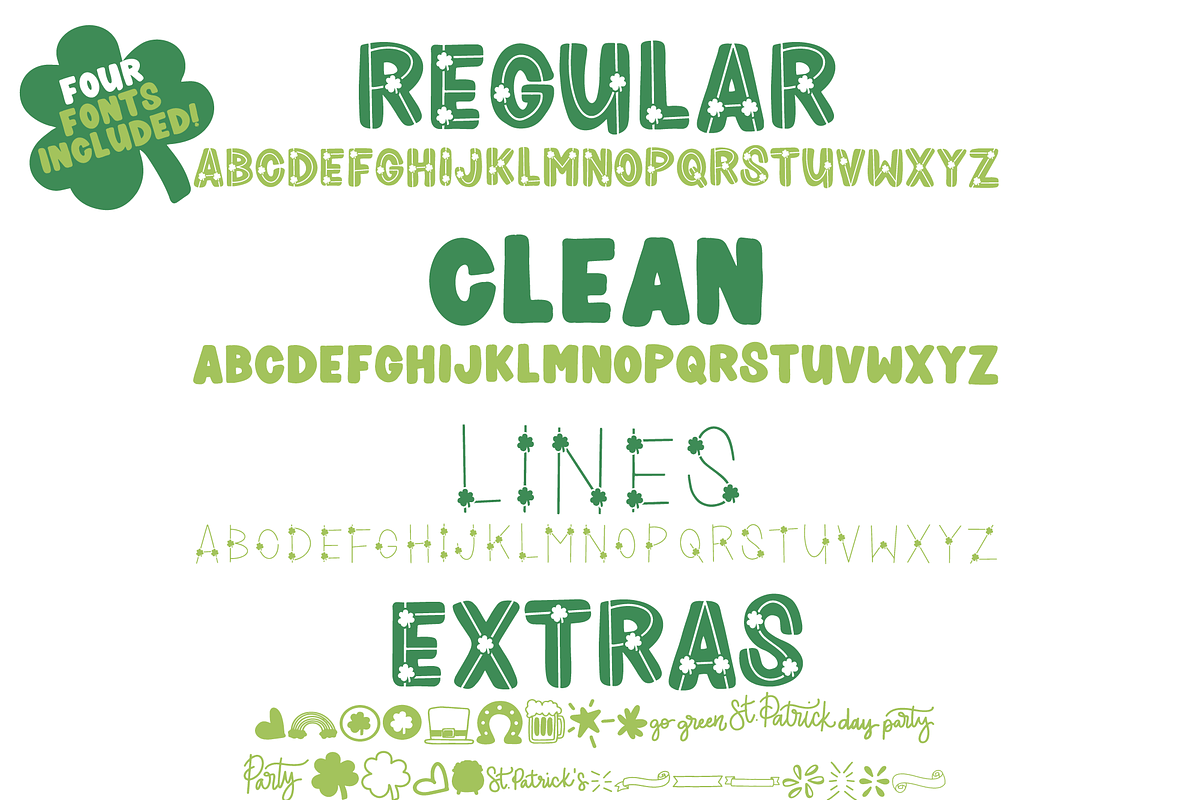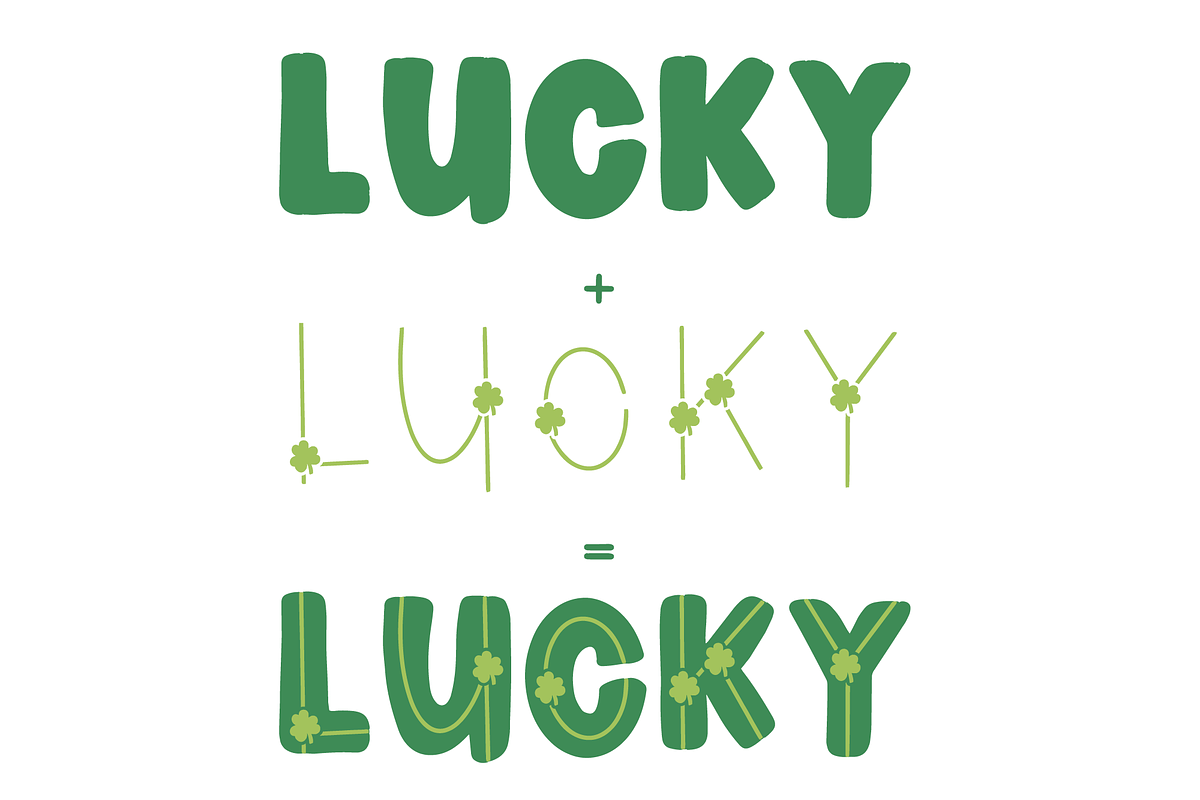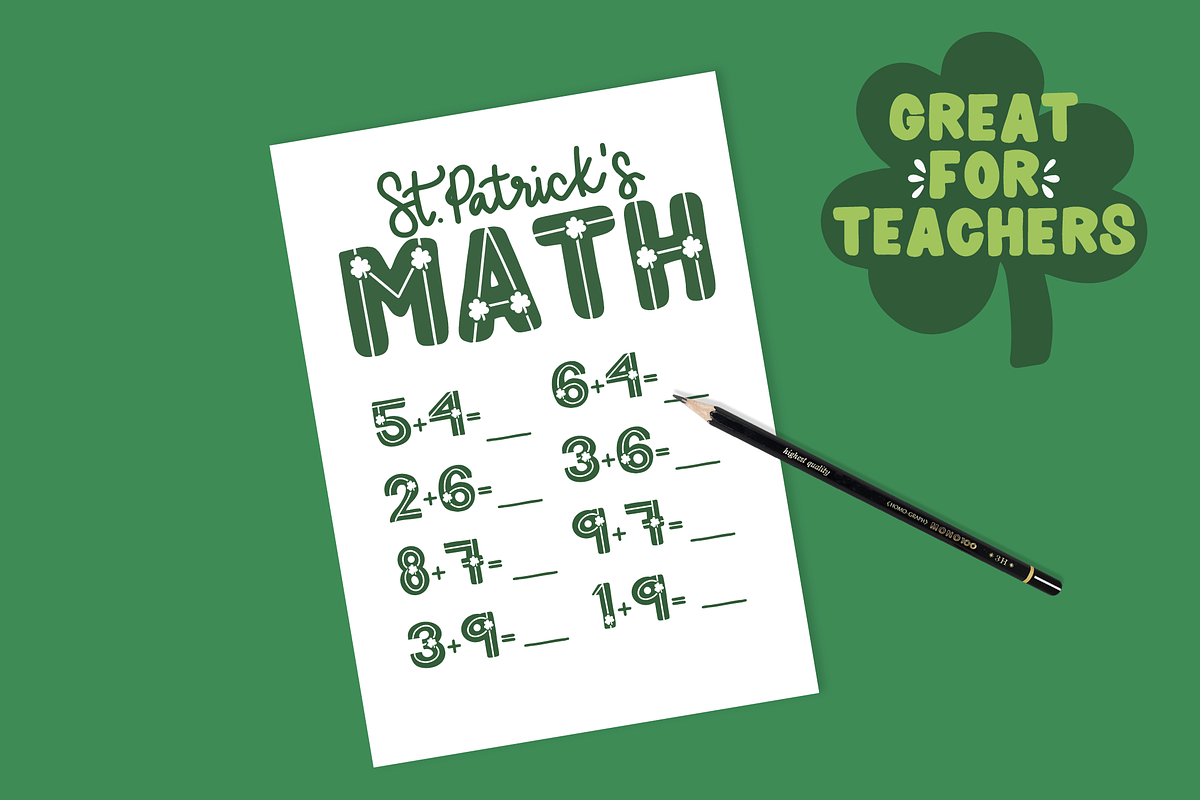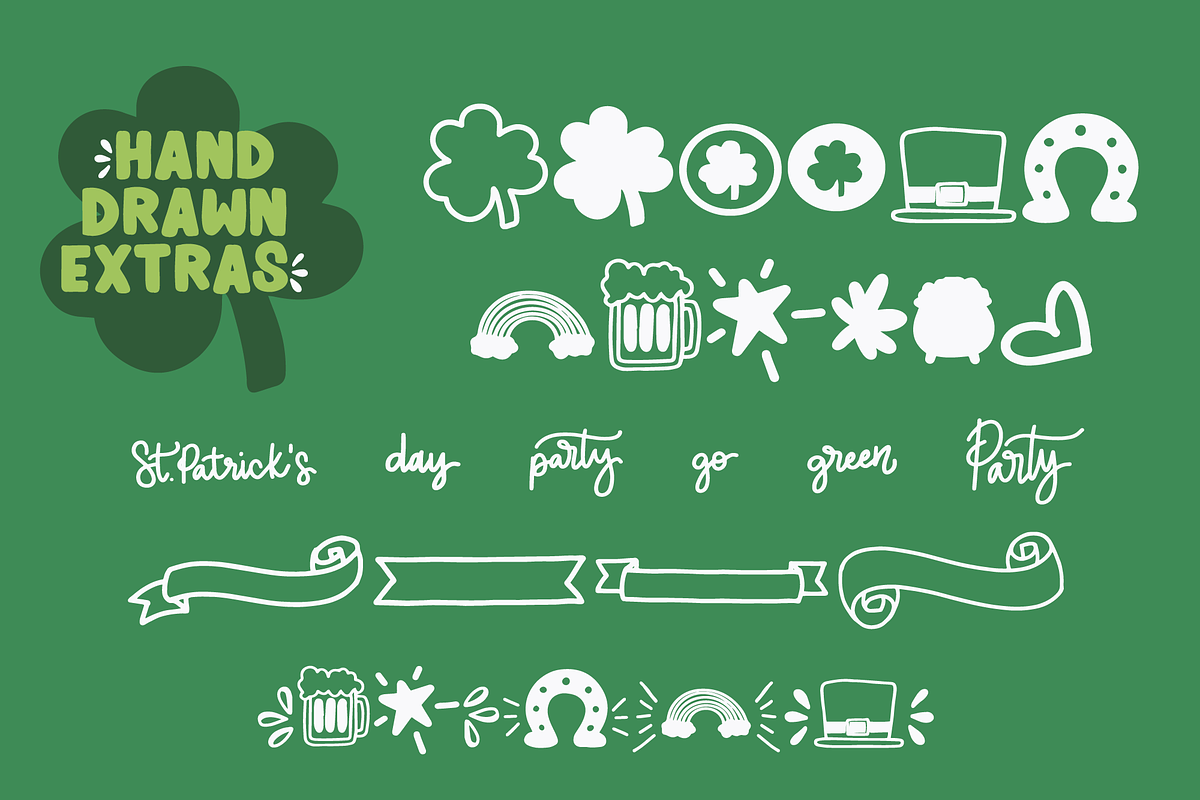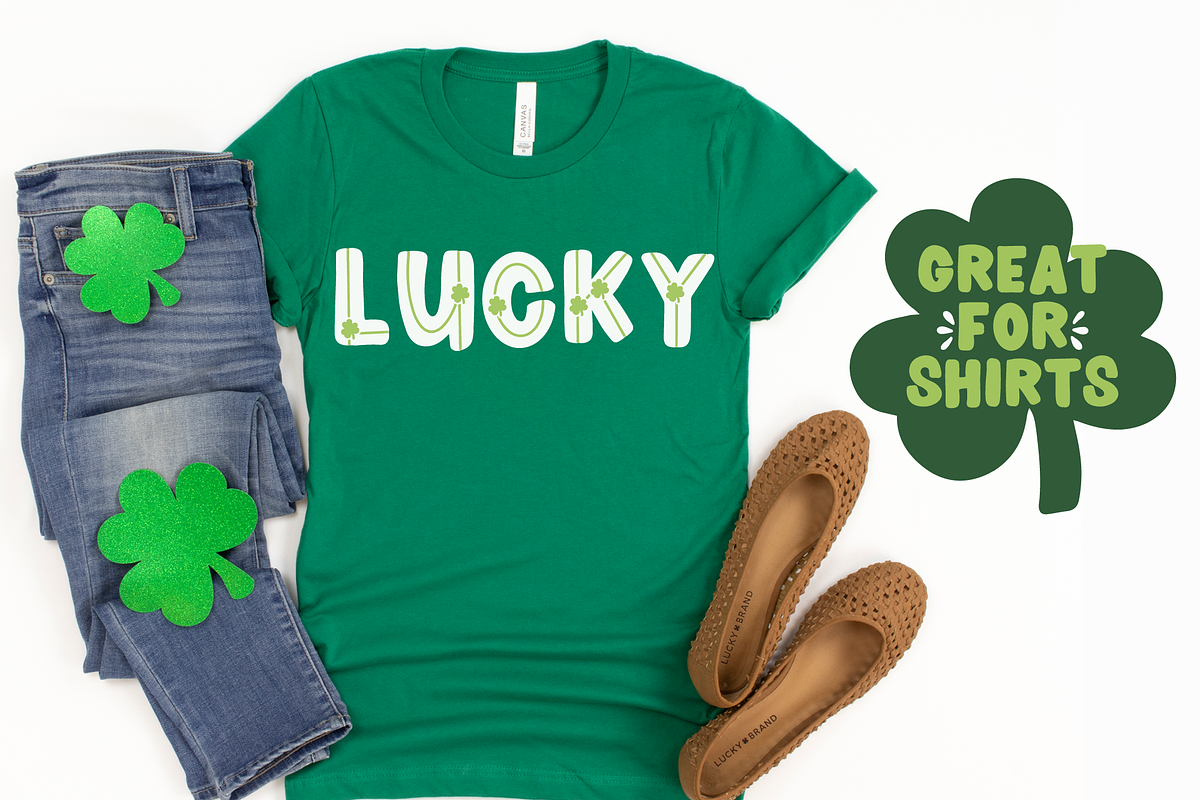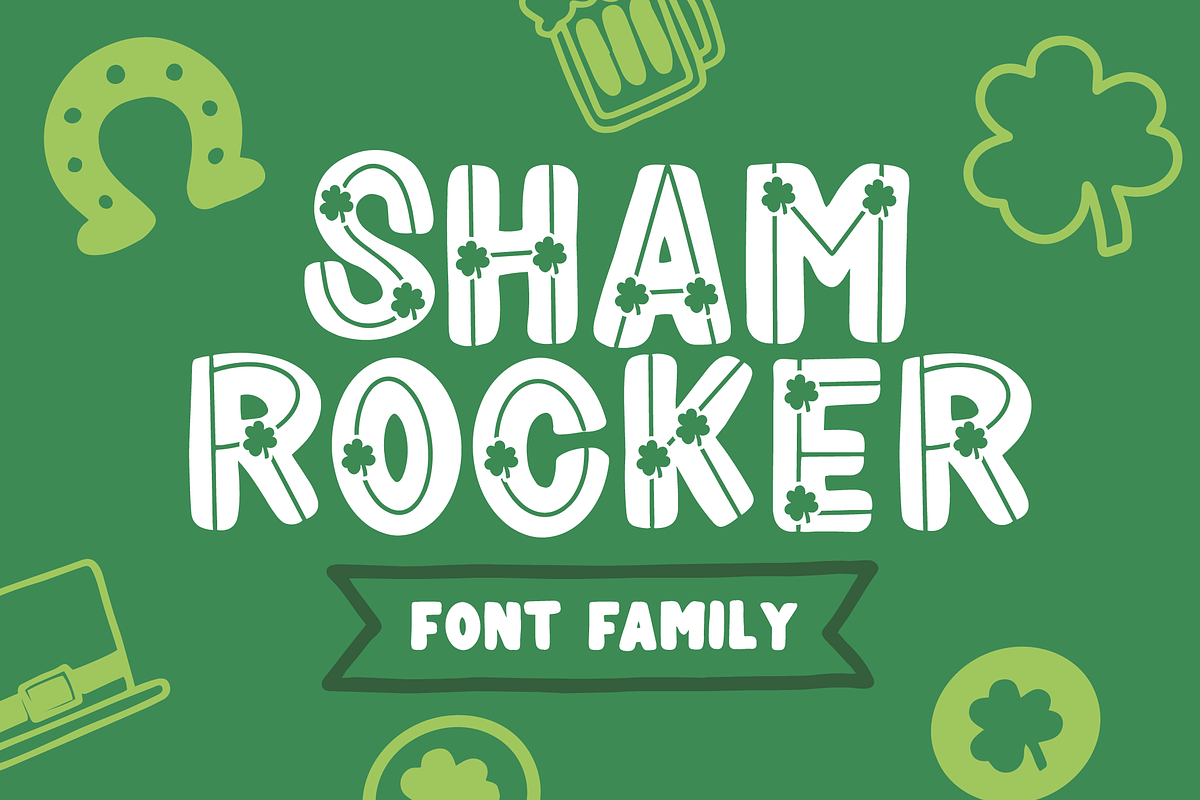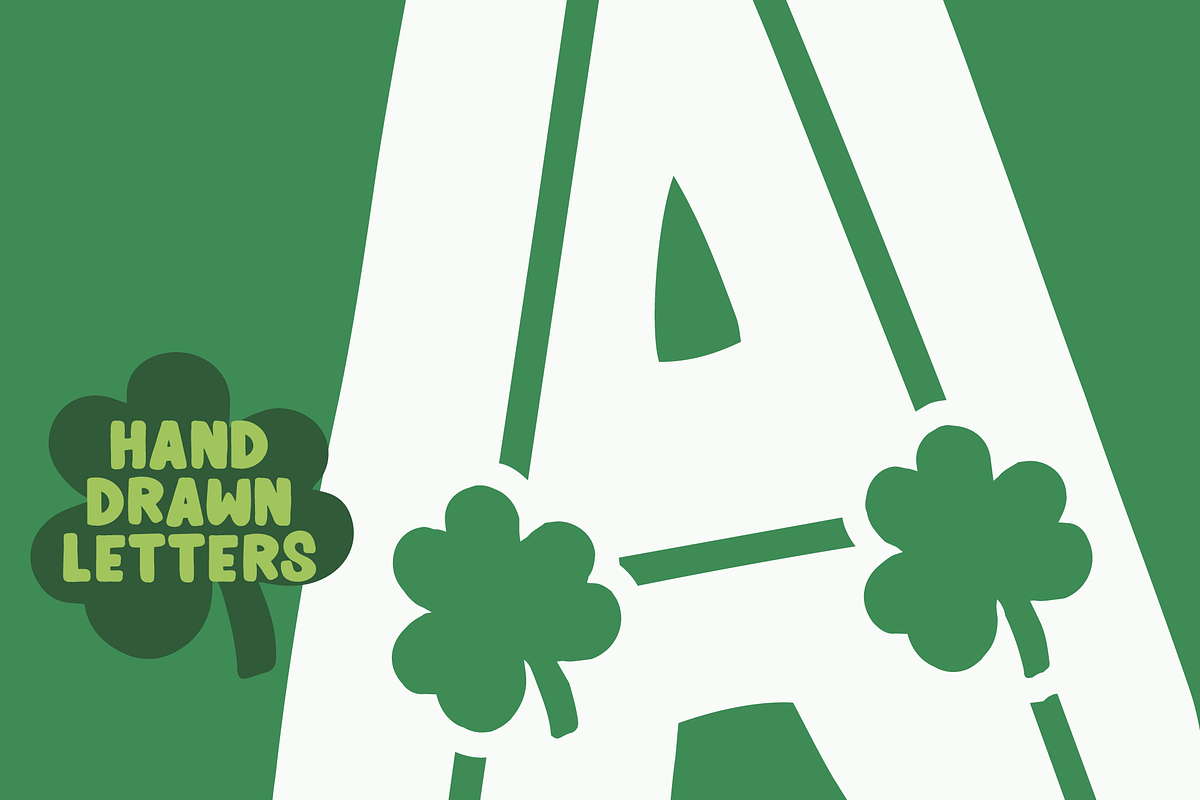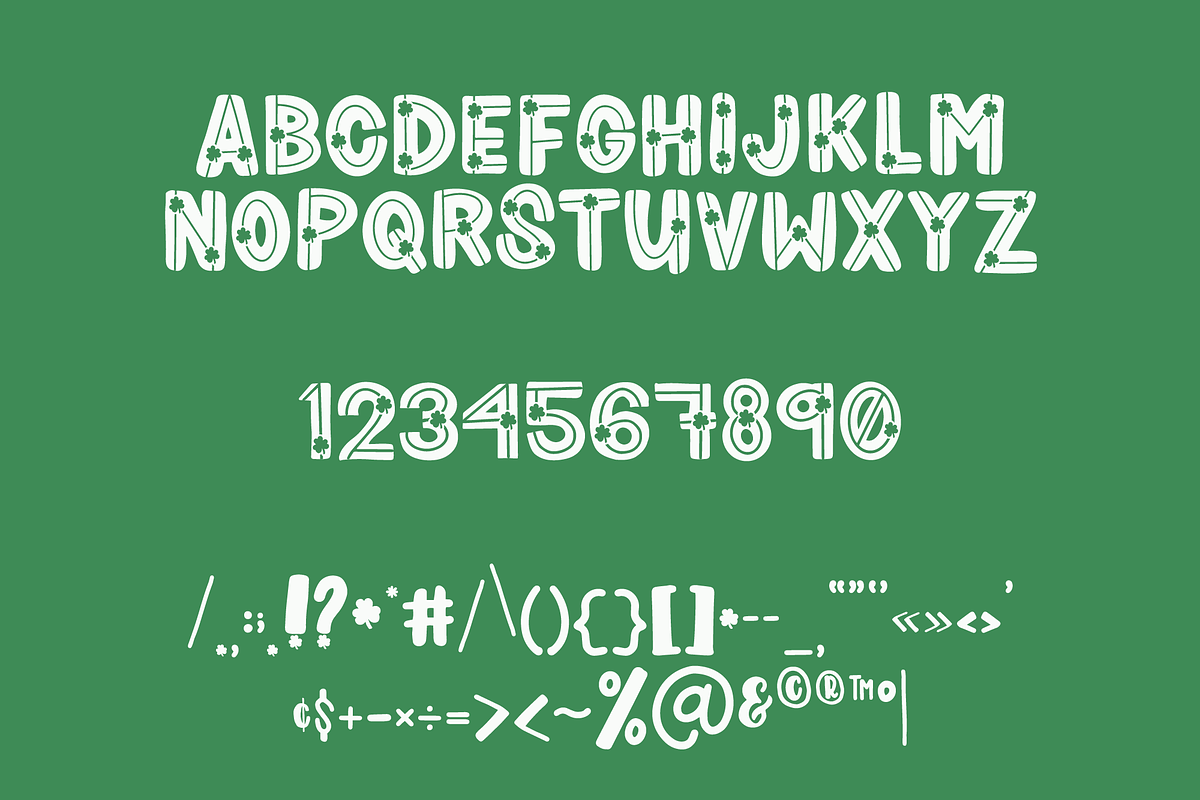
Shamrocker - Font Family
This fun and festive St. Patrick's Day font family not only includes the regular shamrock version, but also the clean and lines versions so that you can layer and add some extra character to your project. You'll also see I've thrown in some extras for ya including some adorable catchwords, banners, and doodles! Test it out below, and let me know what you think!
Shamrocker is a hand lettered font and is perfect for all of your design work including St. Patty's Day decorations, t-shirts, mugs, party banners, school activity sheets, print on demand products. Shamrocker Font Family is also PUA encoded so that you can use it on all of your Cricut and Silhouette projects.